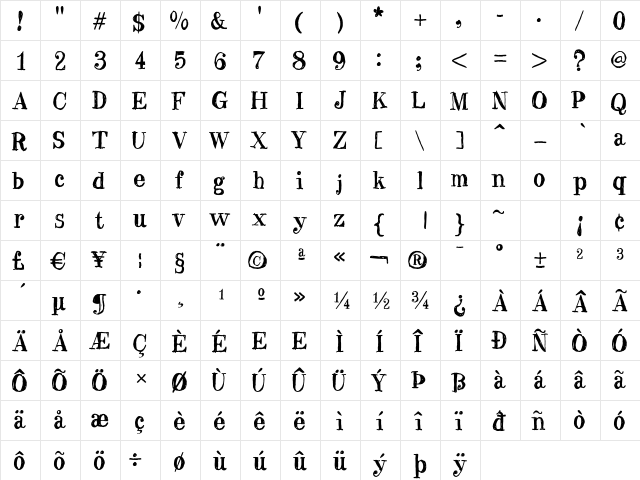
BlueCentury Regular Font Preview
BlueCentury Regular
Design Context for BlueCentury Typeface
BlueCentury is a composed and adaptable typeface that performs quietly and consistently across a wide range of design contexts.
Pro Tip: Use BlueCentury in both headline and body roles to test its range before committing to a single application.